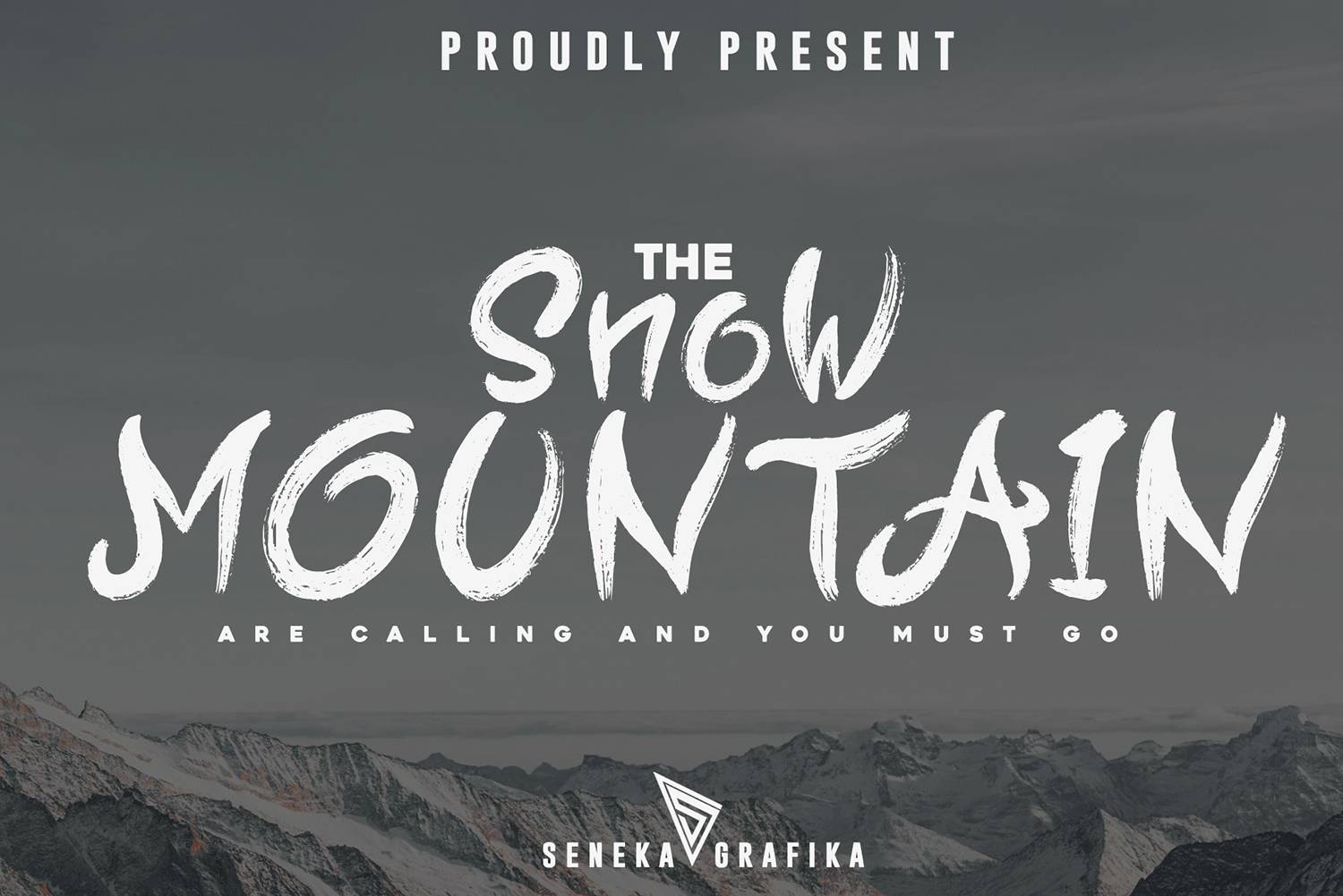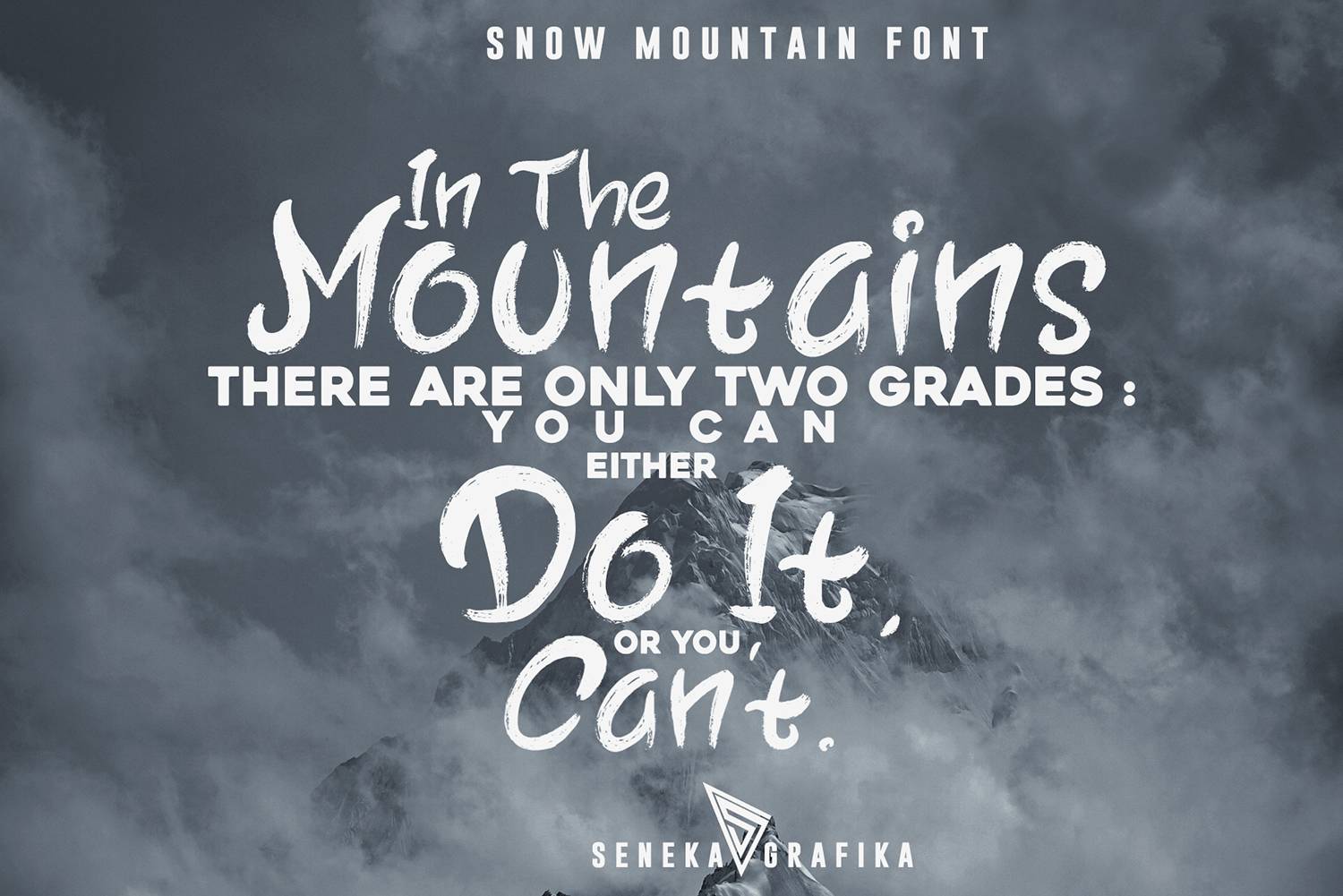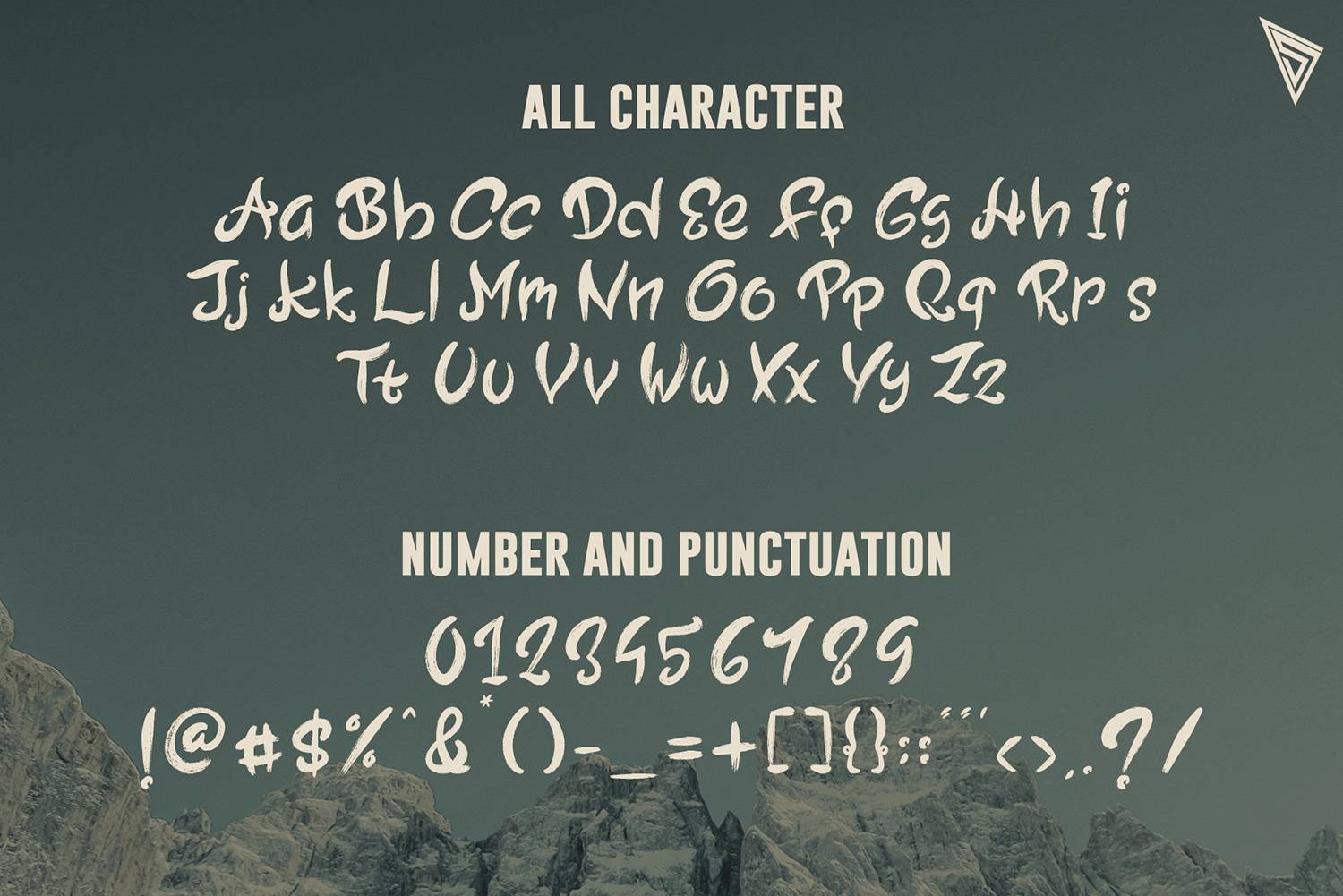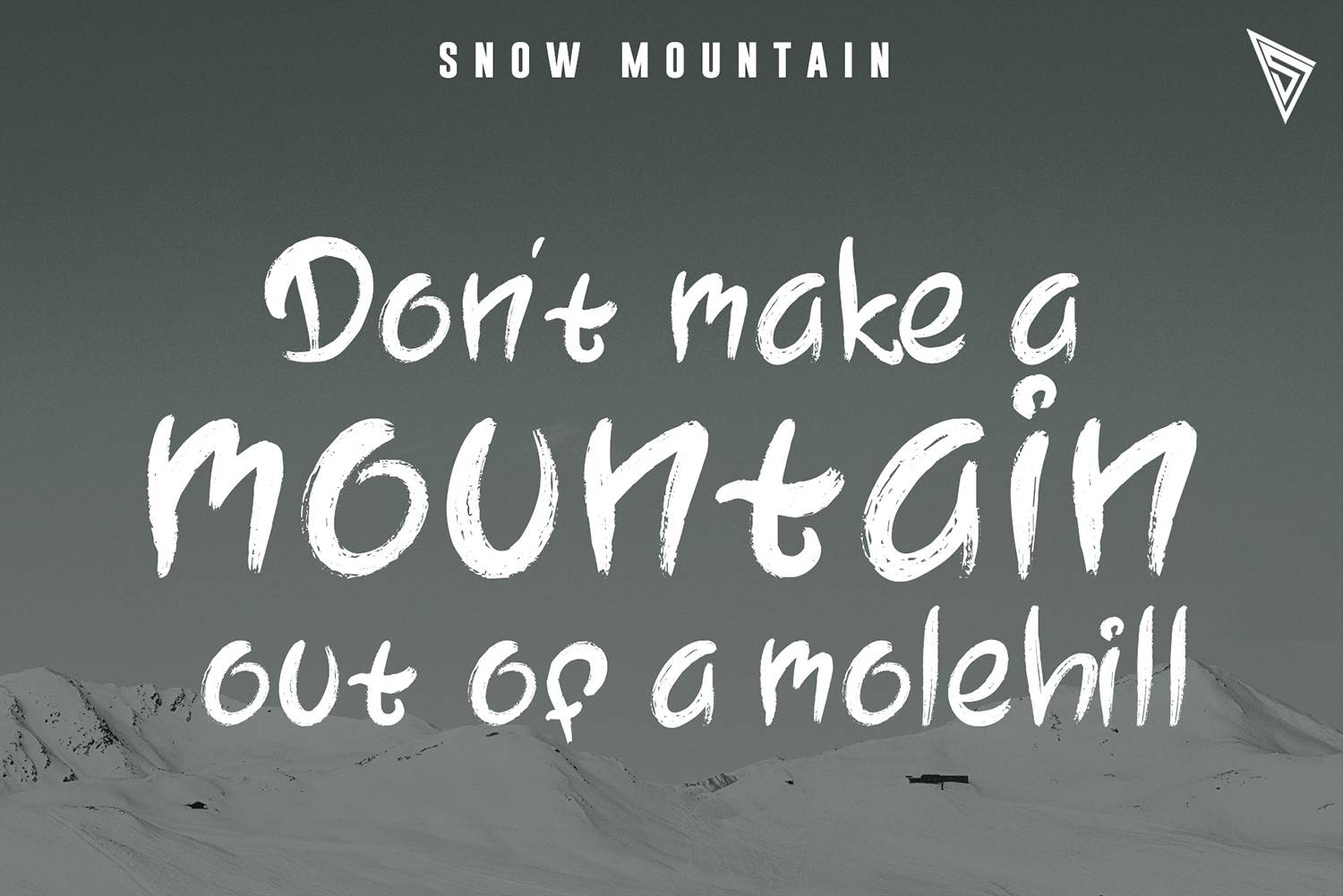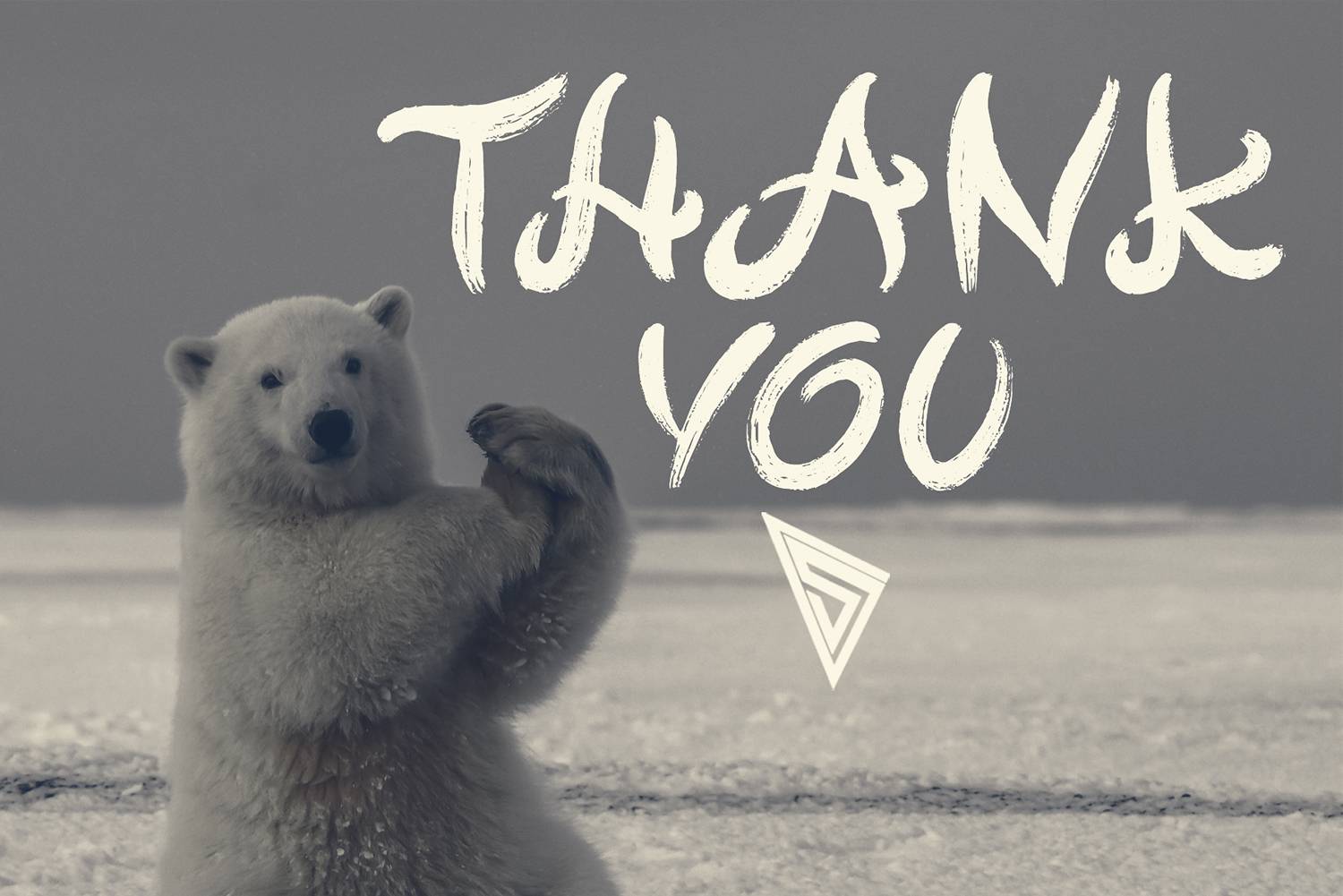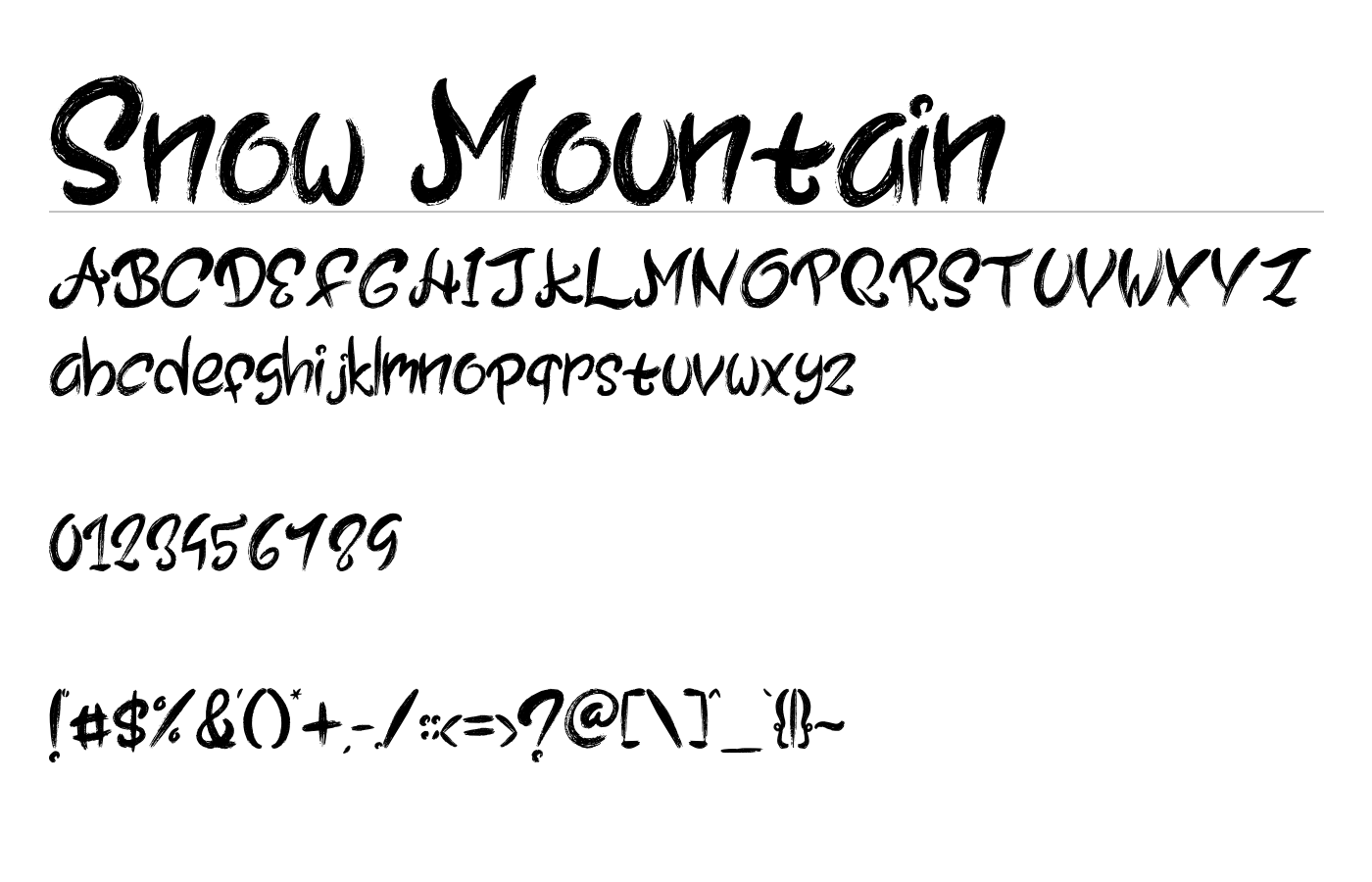
Snow Mountain is a lively handwritten script font with a casual, brush-stroke look that feels energetic and playful. Its uneven strokes and organic flow give it a friendly, approachable character, making it perfect for creative projects, informal branding, and fun headlines that want to convey warmth and personality. This font works well where a natural, hand-crafted touch is needed to stand out and engage viewers.
Snow Mountain Font
About Snow Mountain Font
| Font family | Snow Mountain Font |
| Release date | 2021-12-11 |
| Designer | Muhammad Helmi |